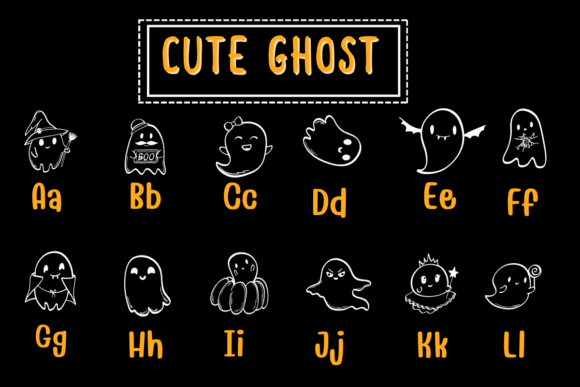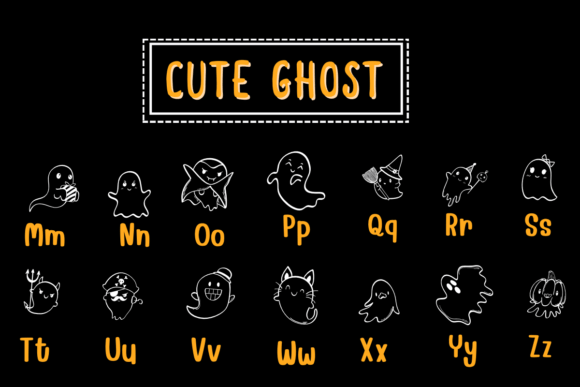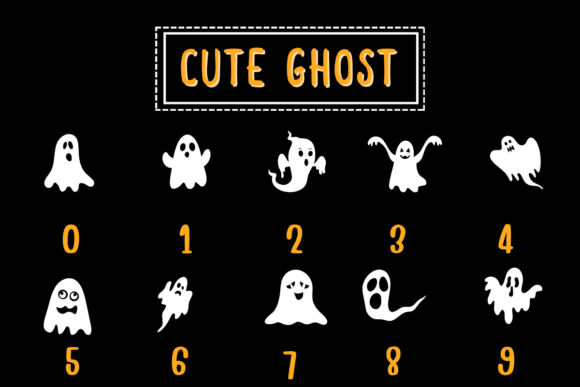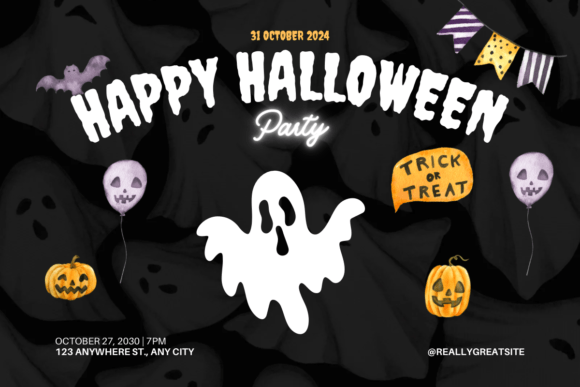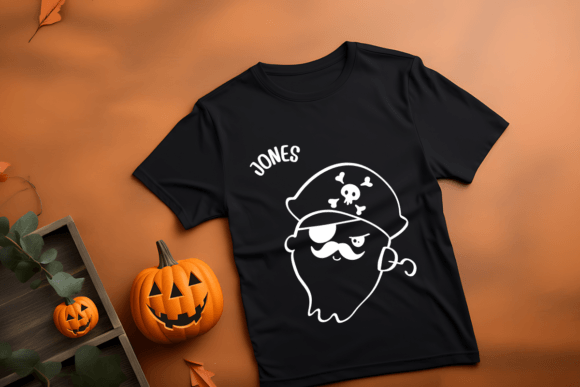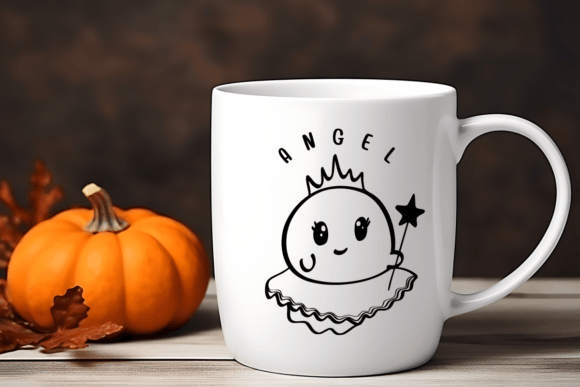
Cute Ghost Font: Add a Spooky Touch to Your Creative Projects
Are you looking for a unique and playful font to add a spooky touch to your creative projects? Look no further than the Cute Ghost font! This adorable dingbats font is perfect for designers and crafters who want to add a touch of whimsy and eeriness to their work. In this article, we’ll explore the features and benefits of the Cute Ghost font and show you how to use it to enhance your creative projects.
What is Cute Ghost Font?
Cute Ghost is a dingbats font that features a spooky theme. The font includes a range of ghostly characters, from cute and friendly to spooky and eerie. Each character is designed to add a touch of whimsy and playfulness to your creative projects. Whether you’re working on a wedding invitation, DIY craft, or logo design, the Cute Ghost font is sure to add a unique and eye-catching element.
Features of Cute Ghost Font
The Cute Ghost font has several features that make it perfect for designers and crafters. Some of the key features include:
- Unique and playful design: The Cute Ghost font features a range of unique and playful characters that are sure to add a touch of whimsy to your creative projects.
- Spooky theme: The font has a spooky theme that’s perfect for Halloween-themed projects or for adding a touch of eeriness to your work.
- Dingbats font: The Cute Ghost font is a dingbats font, which means it’s made up of symbols and characters rather than letters and numbers.
Benefits of Using Cute Ghost Font
There are many benefits to using the Cute Ghost font in your creative projects. Some of the key benefits include:
- Adds a unique touch: The Cute Ghost font adds a unique and eye-catching element to your creative projects, setting them apart from the rest.
- Perfect for spooky themes: The font is perfect for Halloween-themed projects or for adding a touch of eeriness to your work.
- Versatile: The Cute Ghost font can be used in a range of creative projects, from wedding invitations to DIY crafts and logo designs.
- Easy to read: Despite its playful design, the Cute Ghost font is easy to read and understand, making it perfect for use in a range of creative projects.
Using Cute Ghost Font in Your Creative Projects
The Cute Ghost font is versatile and can be used in a range of creative projects. Here are some ideas for using the font:
- Wedding invitations: Add a touch of whimsy and playfulness to your wedding invitations with the Cute Ghost font.
- DIY crafts: Use the Cute Ghost font to add a spooky touch to your DIY crafts, such as Halloween decorations or gift tags.
- Logo design: Use the Cute Ghost font to create a unique and eye-catching logo for your business or brand.
- Social media graphics: Add a touch of playfulness to your social media graphics with the Cute Ghost font.
Tips for Getting the Most Out of Cute Ghost Font
Here are some tips for getting the most out of the Cute Ghost font:
- Experiment with different colors: The Cute Ghost font looks great in a range of colors, from bright and bold to pastel and subtle.
- Use it in combination with other fonts: The Cute Ghost font pairs well with a range of other fonts, so don’t be afraid to experiment with different combinations.
- Add graphics and images: The Cute Ghost font looks great when paired with graphics and images, so consider adding these elements to your creative projects.
The Cute Ghost font is a unique and playful dingbats font that’s perfect for designers and crafters who want to add a spooky touch to their creative projects. With its range of ghostly characters and easy-to-use design, the Cute Ghost font is sure to add a touch of whimsy and eeriness to your work. Whether you’re working on a wedding invitation, DIY craft, or logo design, the Cute Ghost font is a great choice.